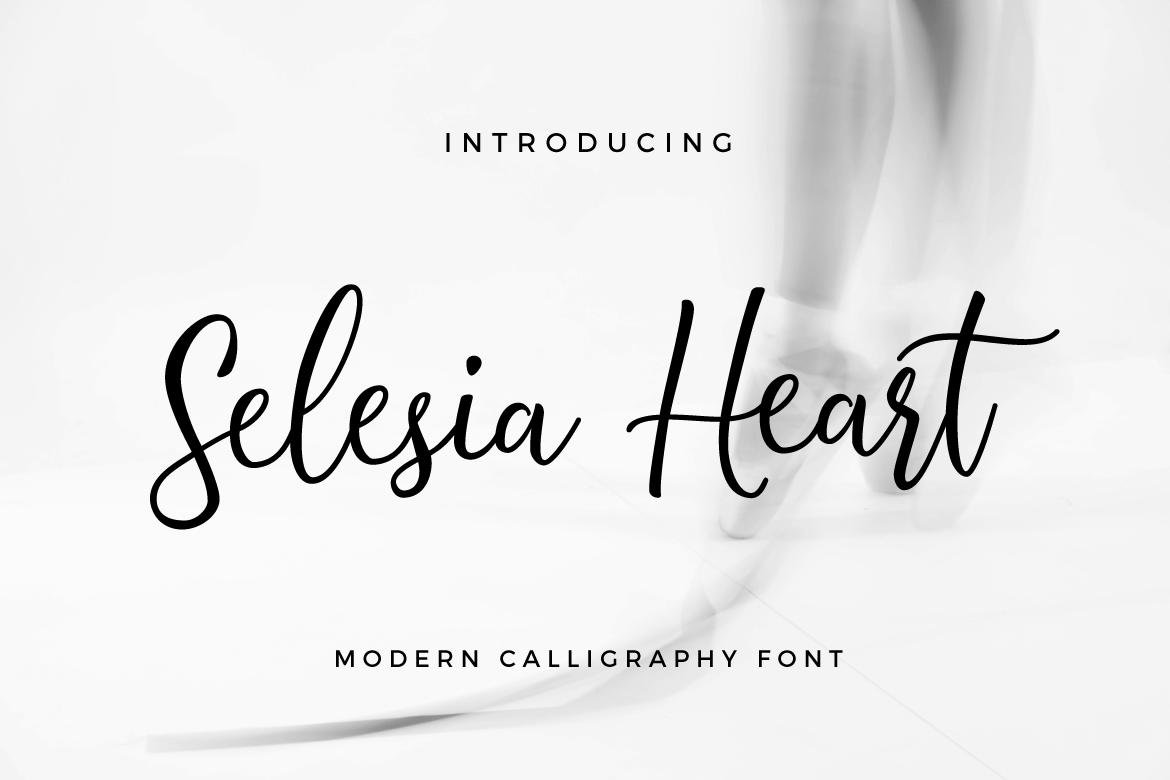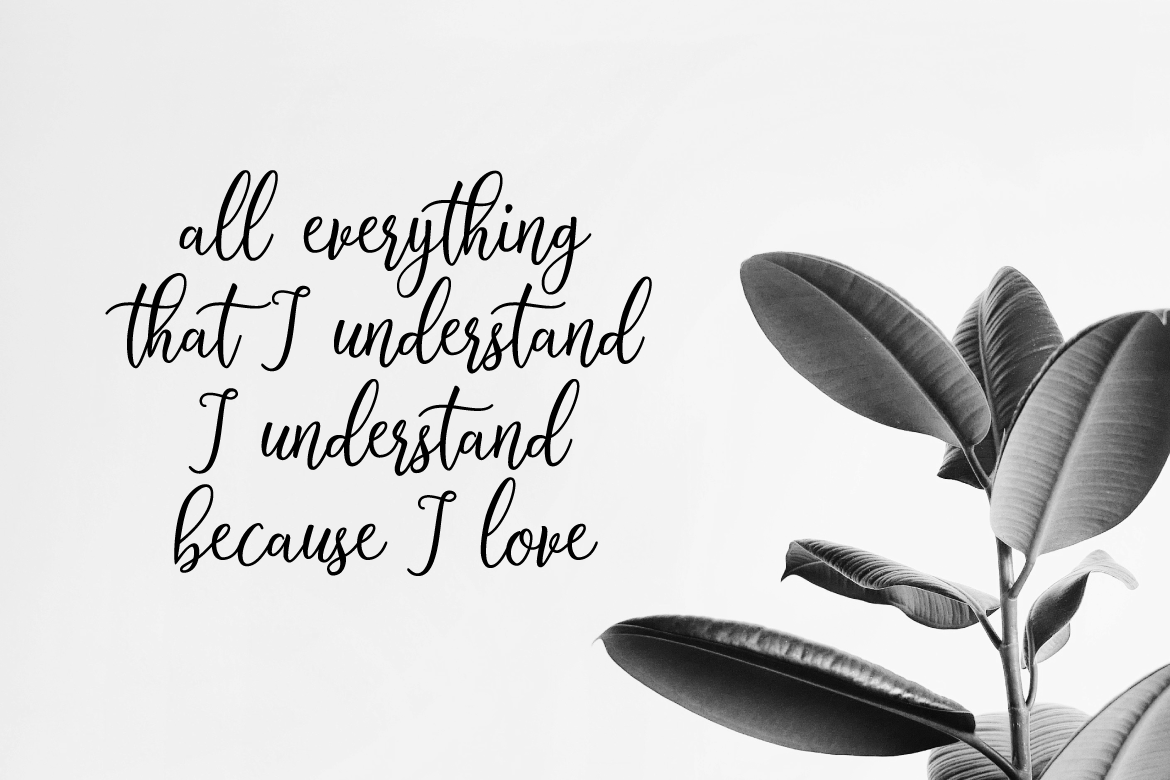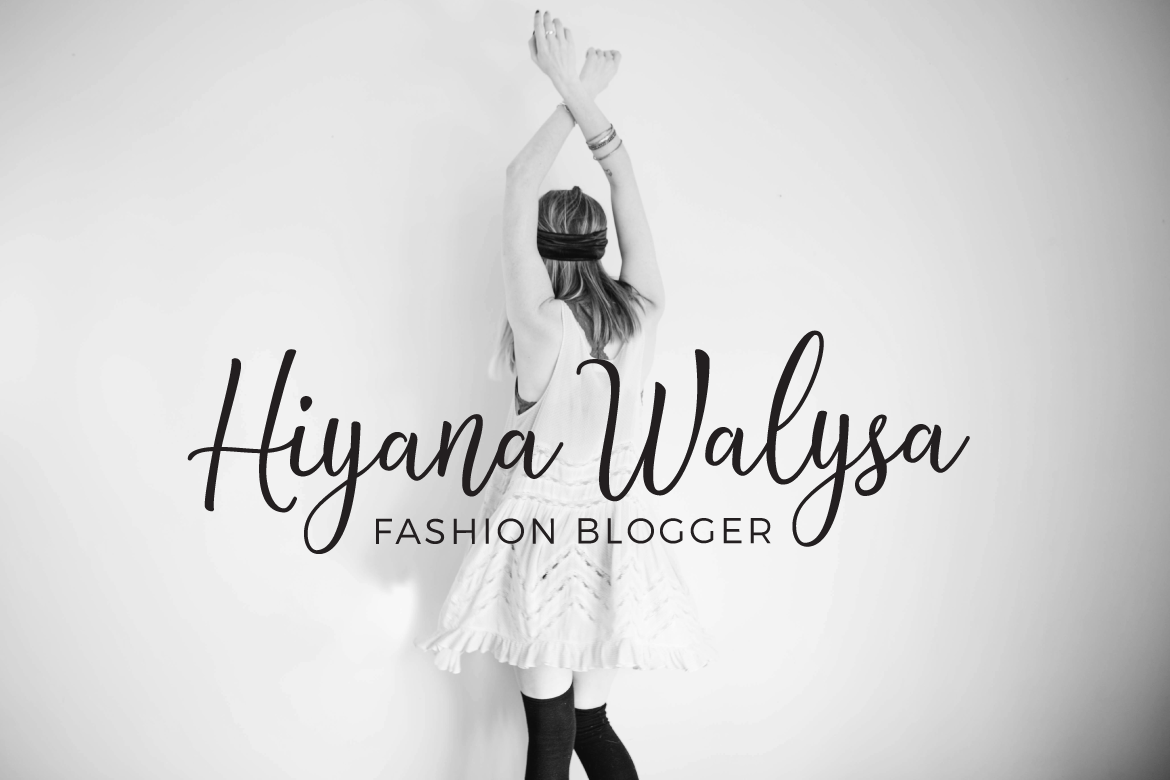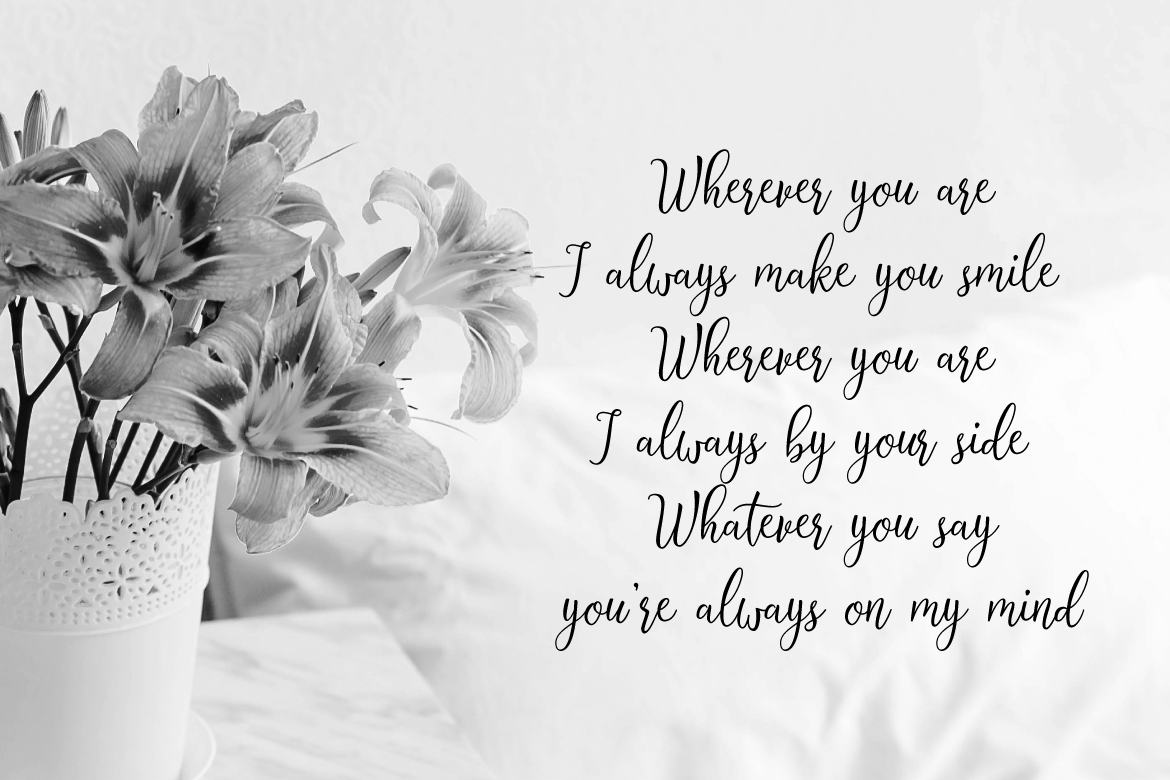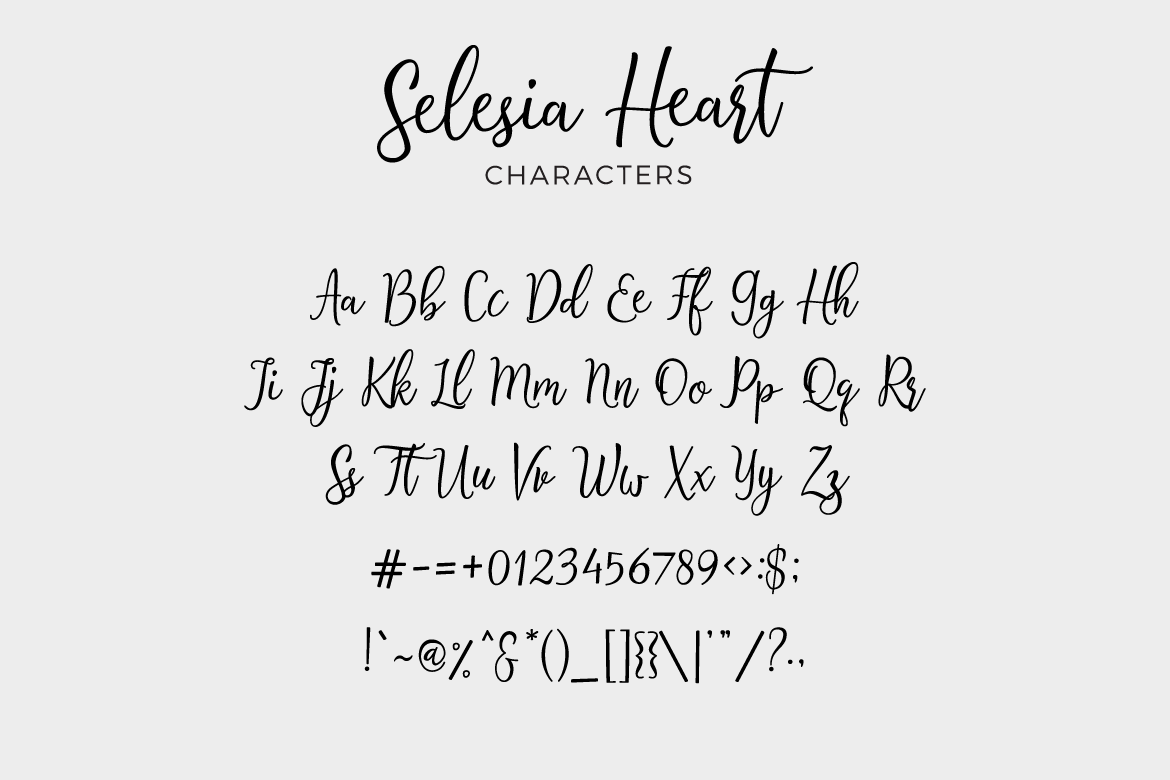
Selesia Heart Font
About Selesia Heart Font
Selesia Heart is a casual calligraphy font. With a flowing baseline and beautiful weight, Selesia Heart is a captivating and suitable script font for a large range of design projects.